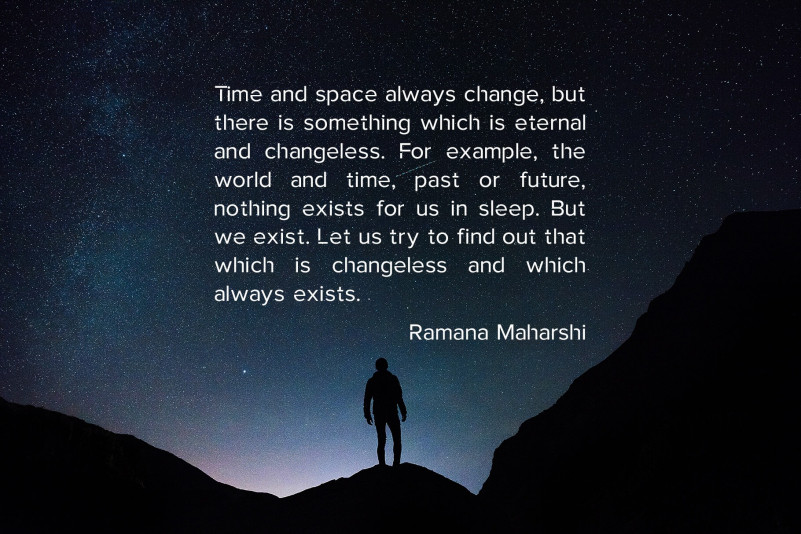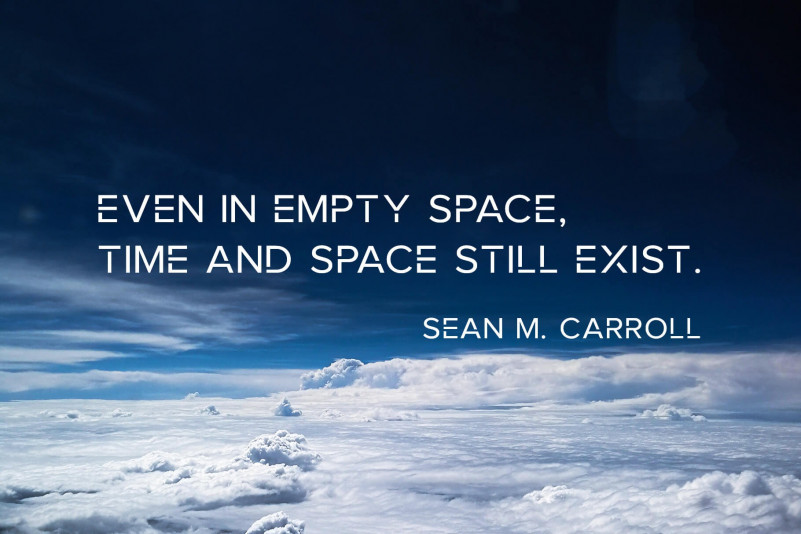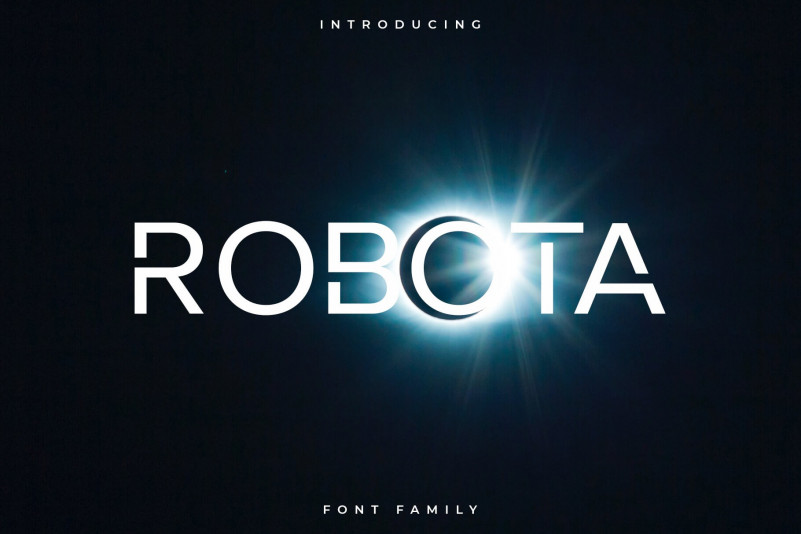
ROBOTA SANS FONT
Robota Sans Serif Font is a modern and clean sans serif font. It’s a versatile font family designed for strong, classic branding.
Robota is perfect for any branding, logos, magazines, videos, weddings, quotes, print, product packaging, website, clothing designs and much more.